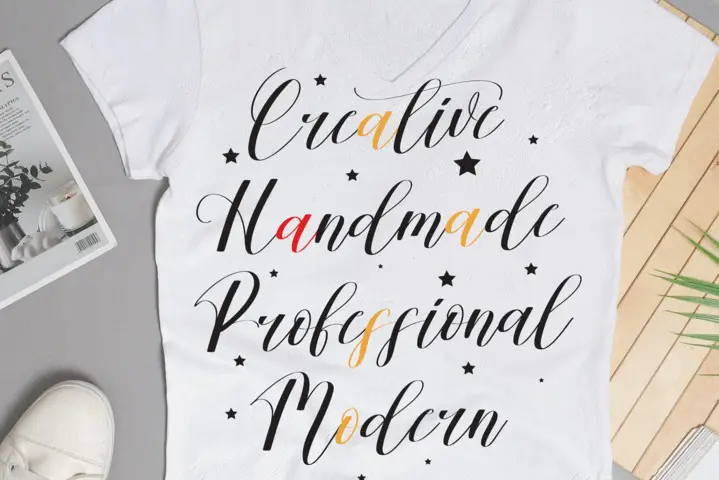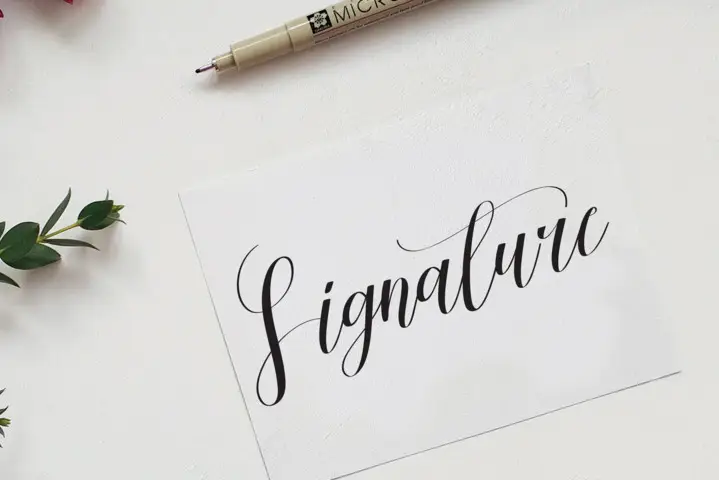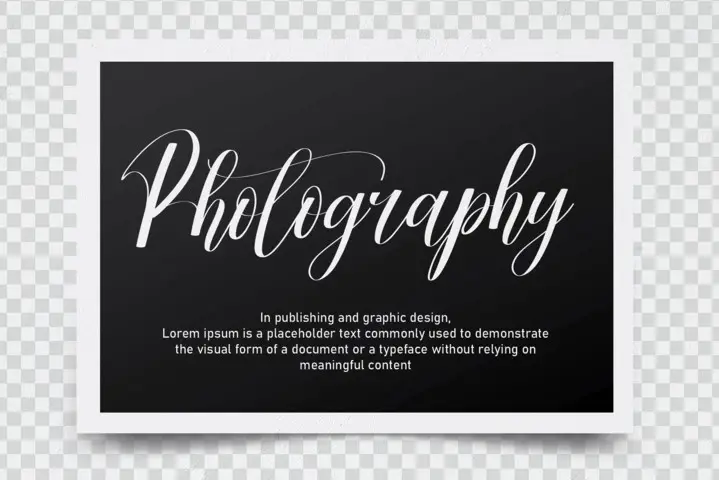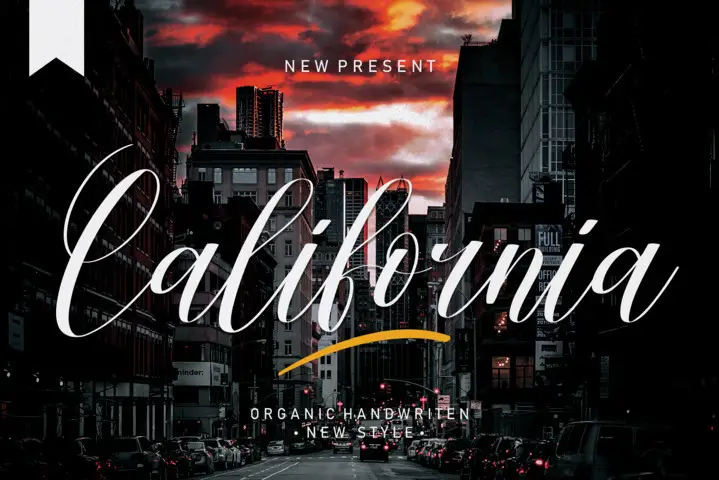
California Handwritten Typeface
The California Handwritten Typeface brings a touch of elegance and personality to your design projects. This font captures the essence of casual handwritten notes, making it perfect for branding, logos, and various print materials.
• Stylish handwritten design
• Style: Handwritten
• Ideal for creating logos, invitations, and social media graphics
• Use in combination with sans-serif fonts for a balanced look